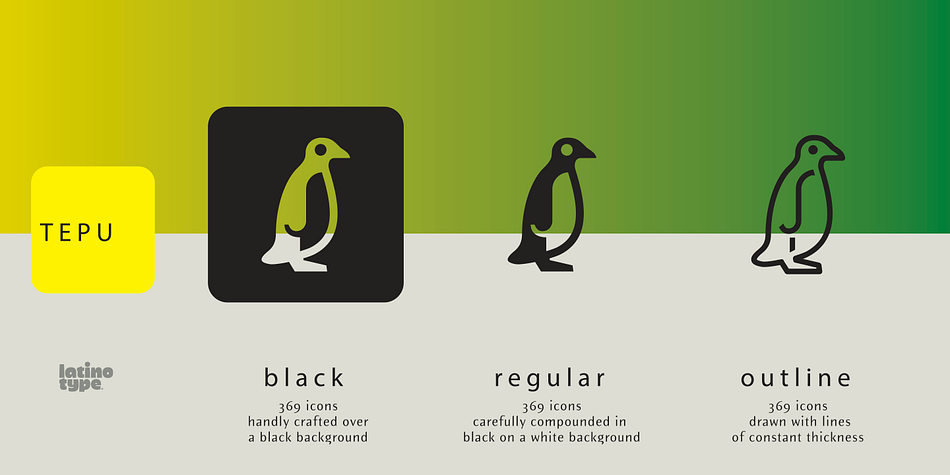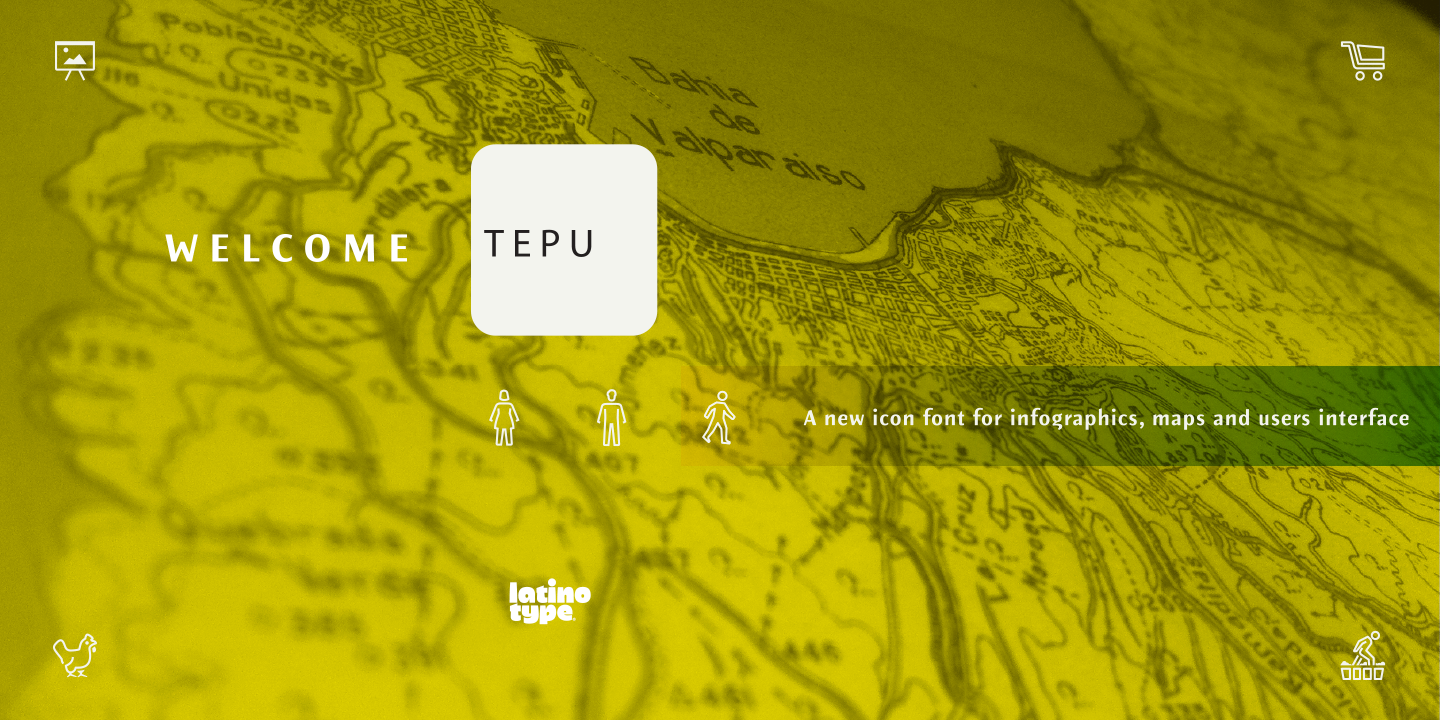
Tepu
Tepu is a dingbat font family. This typeface has three styles and was published by Latinotype.
Tepu is a pictogram set which is inspired in modern iconography.
It is a font with three different versions.
Black: white icons on a black background, Regular: black icons on a white background, and Outline: pictograms made with constant thickness.
Tepu is a typeface best suited for information design, maps, user interface, instructions and educational purposes.
Each set contains 369 icons.
Tepu is a pictogram set which is inspired in modern iconography. It is a font with three different versions. Black: white icons on a black background, Regular: black icons on a white background, and Outline: pictograms made with constant thickness.
Tepu is a typeface best suited for information design, maps, user interface, instructions and educational purposes. Each set contains 369 icons.